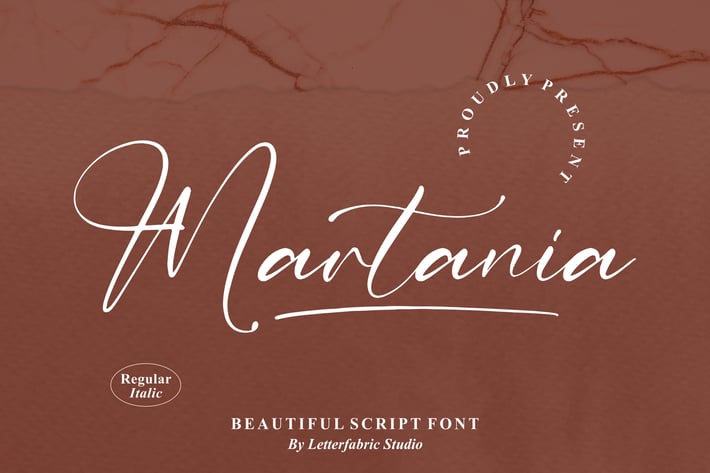
Martania Beautiful Script Font
Martania is a graceful and stylish handwritten script font that radiates modern sophistication. With smooth, elegant strokes and natural flow, it evokes the essence of timeless handwriting — perfect for designs that seek to blend luxury with warmth. Whether used in digital branding or printed works, Martania delivers a refined aesthetic.
Elegant handwritten script with natural curves
Includes Regular and Italic styles
Works beautifully for both print and digital designs
Wedding invitations and stationery
Fashion and lifestyle branding
Product packaging
Greeting cards and quotes
Elegant logos and personal signatures
Social media and editorial design
Delicate yet confident — Martania brings every word to life with effortless beauty and timeless script charm.